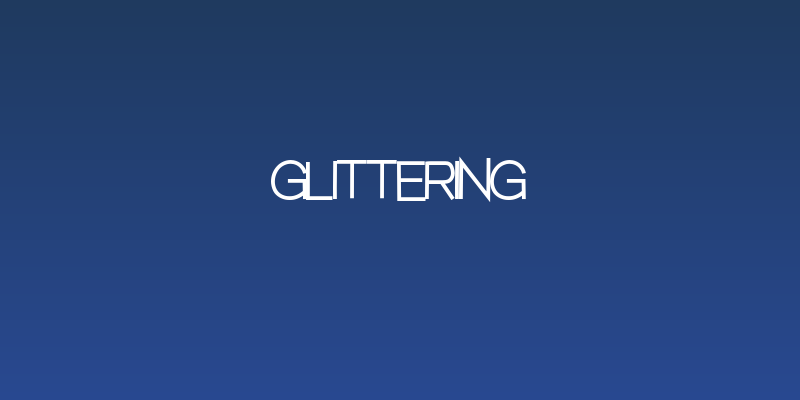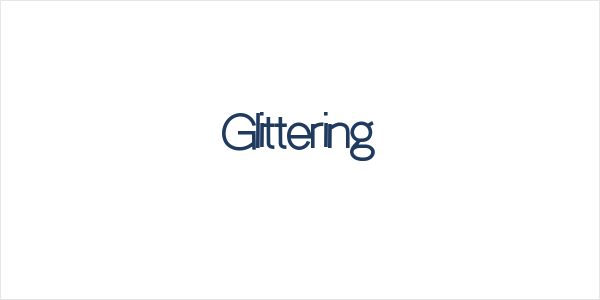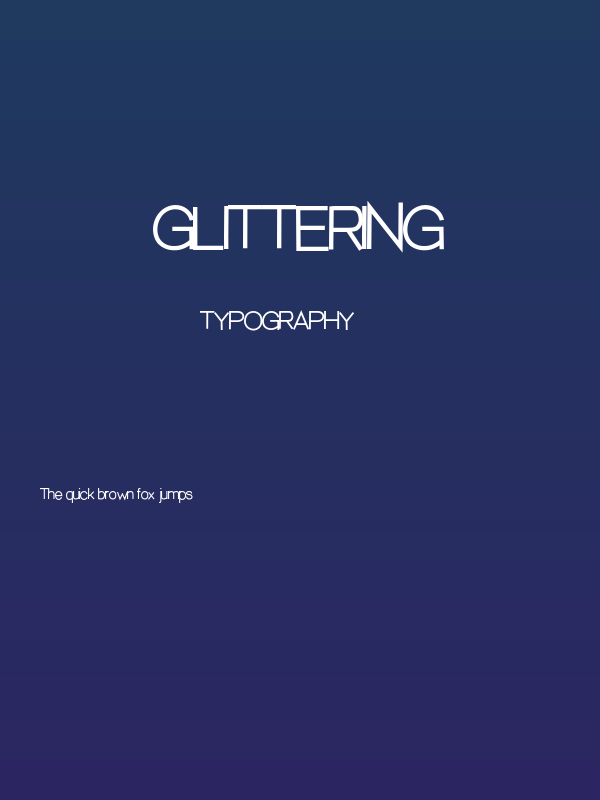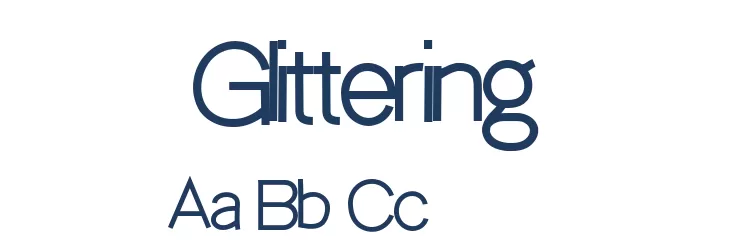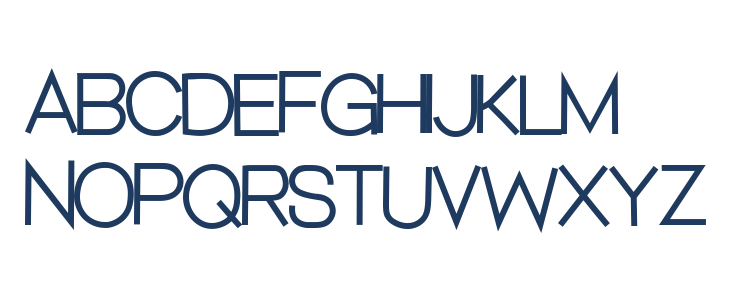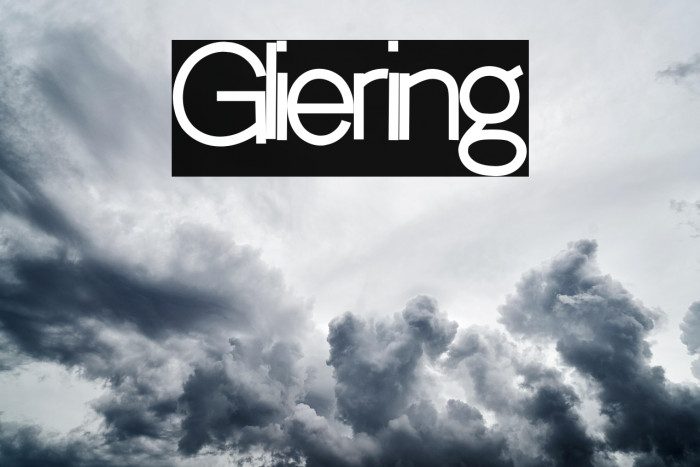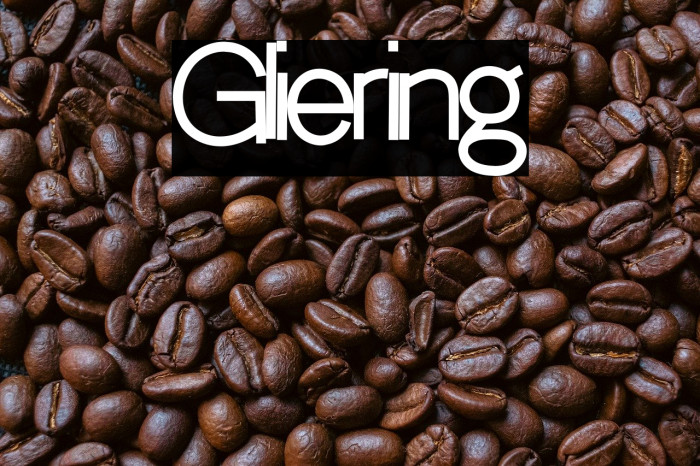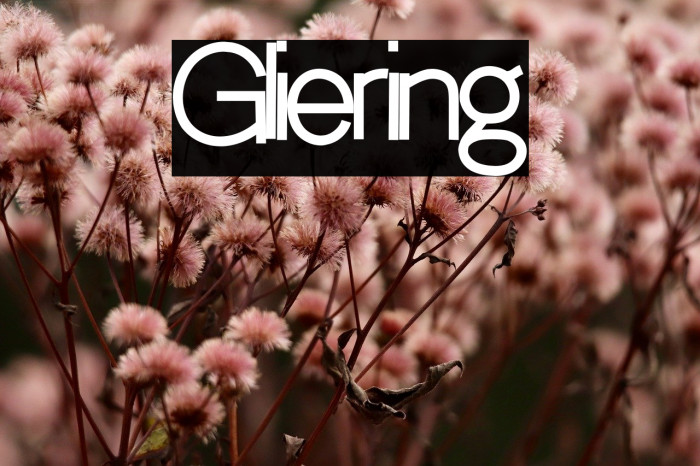
Glittering Font
Glittering Description
A modern, geometric sans-serif font with clean lines and a slightly condensed appearance, featuring a mix of straight and angled strokes.
| Overall Style | Modern, Geometric |
| Use Case | Headlines, Logos, Digital interfaces |